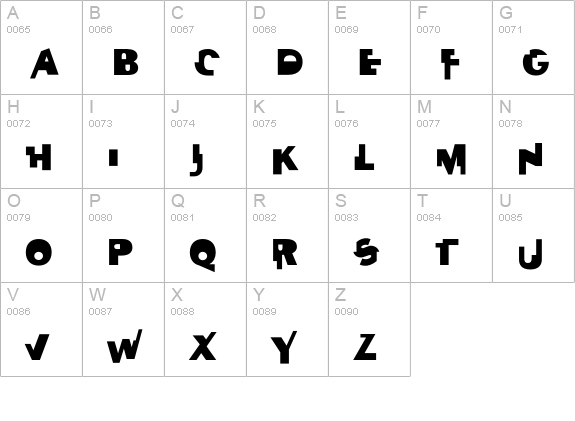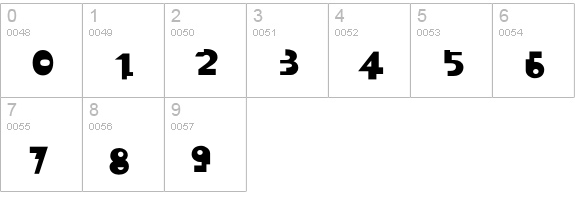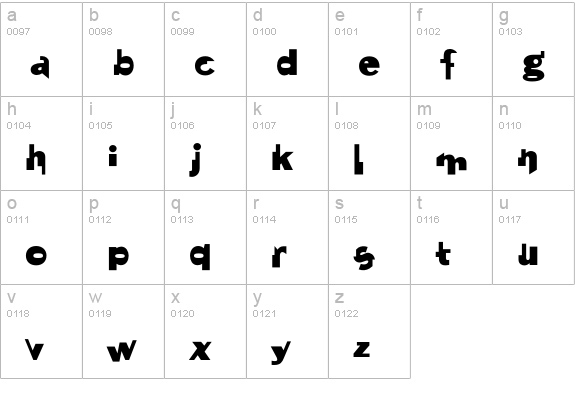
Janaki-Bold Font Details
Janaki-Bold is a strong, high-contrast variant in the Janaki typeface family \xE2\x80\x94 well suited to headlines, attention-grabbing titles, and strong calls-to-action.
Janaki-Bold is a stunning font that exudes confidence and elegance. Its bold and commanding strokes make it perfect for titles, headlines, and posters that need to make a strong statement. With its sleek and stylish design, Janaki-Bold is sure to captivate the attention of any reader. What sets Janaki-Bold apart is not only its impeccable aesthetics but also its availability as a free download. Yes, you heard it right! This exceptional font is freely accessible for anyone looking to add a touch of sophistication to their projects. Whether you are a professional graphic designer or an aspiring artist, Janaki-Bold is here to elevate your work to new heights. Downloading Janaki-Bold is now easier than ever, thanks to FontsMarket.com. This reputable platform offers a vast collection of top-quality fonts, and Janaki-Bold is just one of their many gems. Simply visit FontsMarket.com, locate the Janaki-Bold font, and download it at no cost. It's a fantastic opportunity to enhance your creative endeavors without spending a dime. So why wait? Embrace the power and allure of Janaki-Bold and let your designs make a lasting impression. Download it freely at FontsMarket.com and witness how this font effortlessly elevates your projects to new levels of excellence.